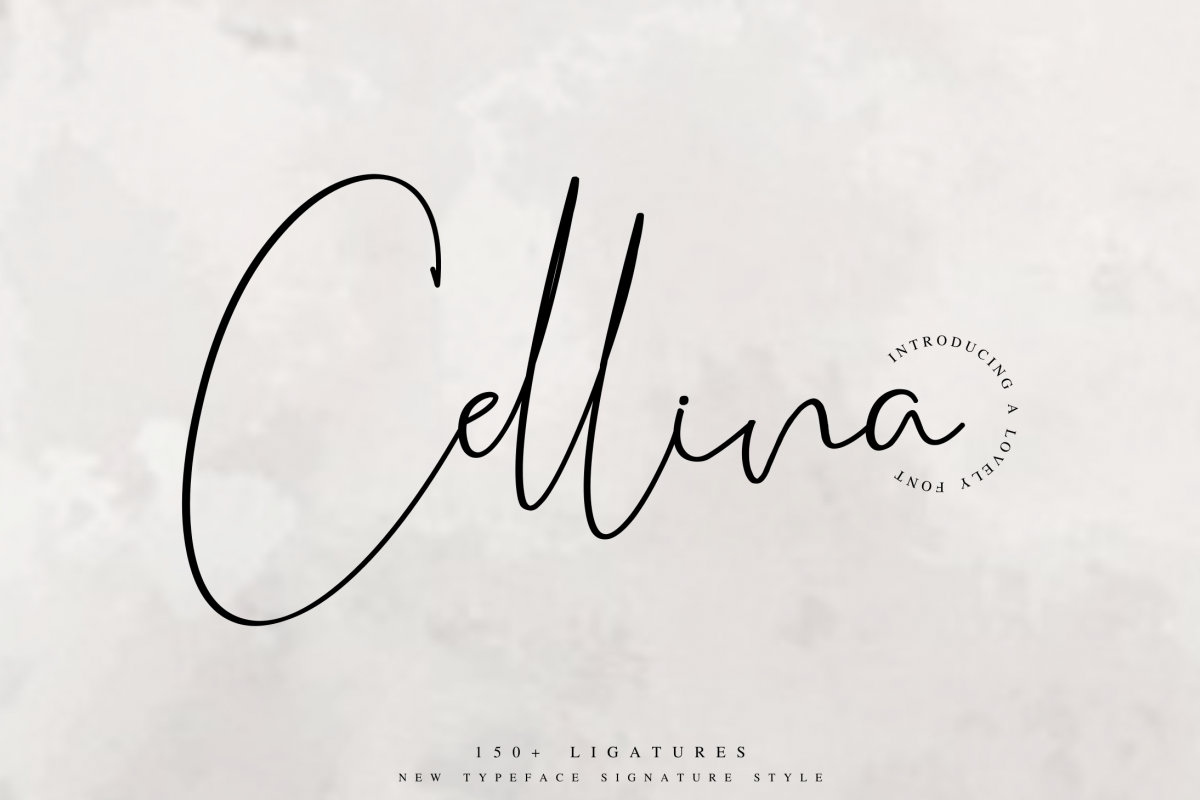
Cellina
Hello!! Introducing an elegant signature font, again!!
Cellina is a contemporary and beautiful signature font. This font will make perfect designs for gorgeous logos, posters, wedding invitations, blog posts, social media, and more!
Cellina includes more than 150 ligatures will make your design look high end.
Cellina will suit well for feminine, sexy and elegant logo.